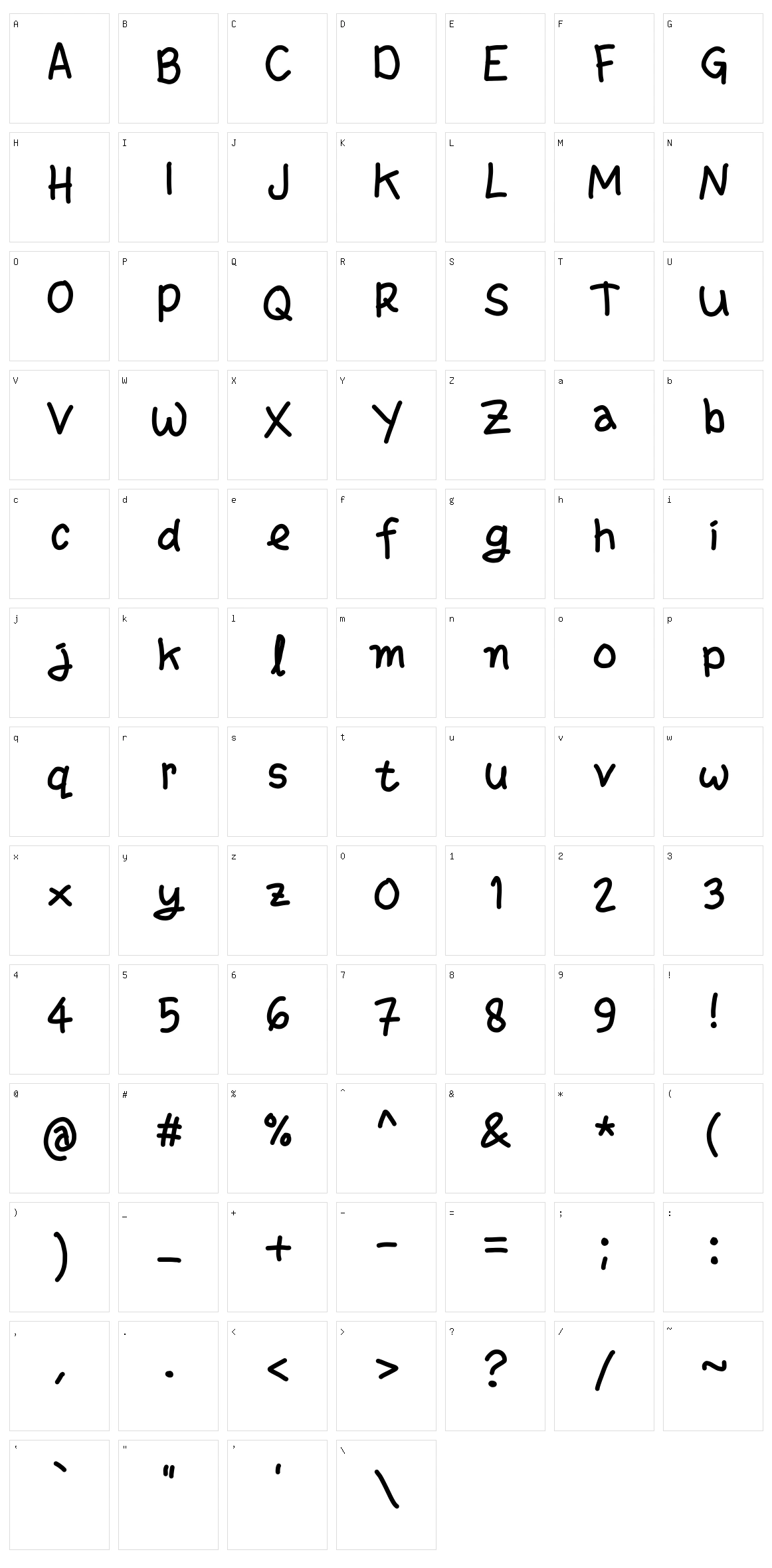
The free font Gaplek is carefully designed by adhie, showcasing a thoughtful balance of creativity and usability and falls under the Script font style. When you download the ZIP file, it contains only 19.89 KB of font files, making it lightweight and quick to download. Please review the license details below to understand permitted usage and distribution rights. If license information is not available, we recommend using this font for personal projects only or contacting the author directly for commercial usage permissions.